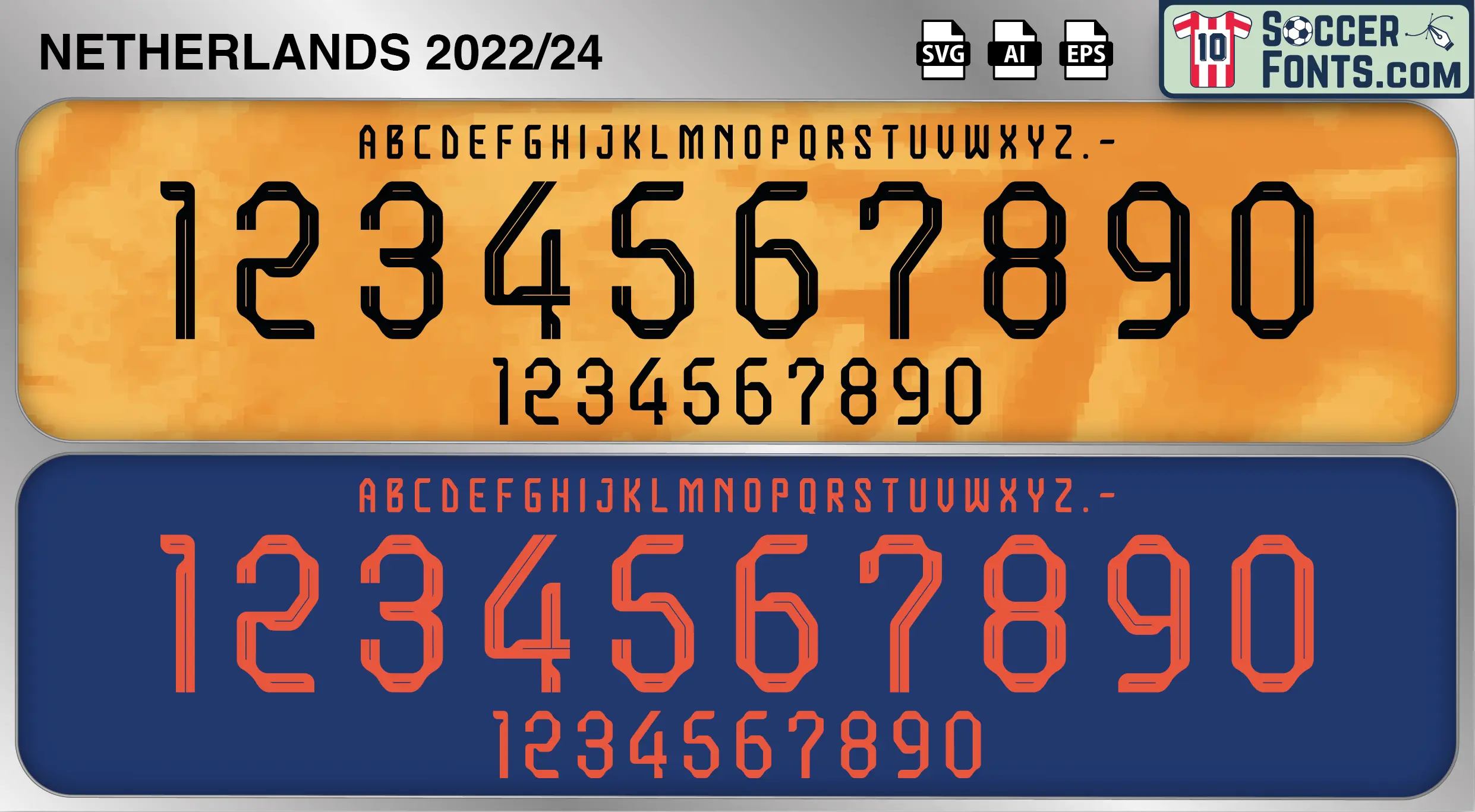
Netherlands 2022-24 Font
The Netherlands 2022-24 font is an editable soccer jersey lettering design in vector format inspired by the Netherlands kit style used during the 2022-24 football seasons. This football font artwork is prepared for football shirt recreations, custom jersey projects, football kit mockups and sports graphic design workflows.
The 2022-24 period is closely linked with the Netherlands’ participation at the 2022 FIFA World Cup in Qatar and the continued development of a highly competitive national team. Under Louis van Gaal, the Dutch returned to the World Cup stage with a squad built around players such as Virgil van Dijk, Cody Gakpo, Frenkie de Jong, Denzel Dumfries, Nathan Aké and Memphis Depay. The team advanced to the quarter-finals and produced several strong performances throughout the tournament, demonstrating the progress made since the difficult rebuilding years of the late 2010s. Dutch football once again established itself among the strongest nations in Europe while maintaining its traditional emphasis on technical quality and intelligent positional play.
The Netherlands 2022-24 font became associated with the modern generation that helped return the Oranje to consistent international competitiveness. Following the World Cup, the team continued preparing for UEFA EURO 2024 while integrating new talent into an already experienced squad. The Netherlands 2022-24 font reflects a period of stability, ambition and renewed confidence as players such as Van Dijk, De Jong and Gakpo carried forward the traditions established by previous Dutch generations. Netherlands shirts from this era remain especially popular among football shirt collectors because of their connection with the 2022 World Cup and the resurgence of one of football’s most influential national teams.